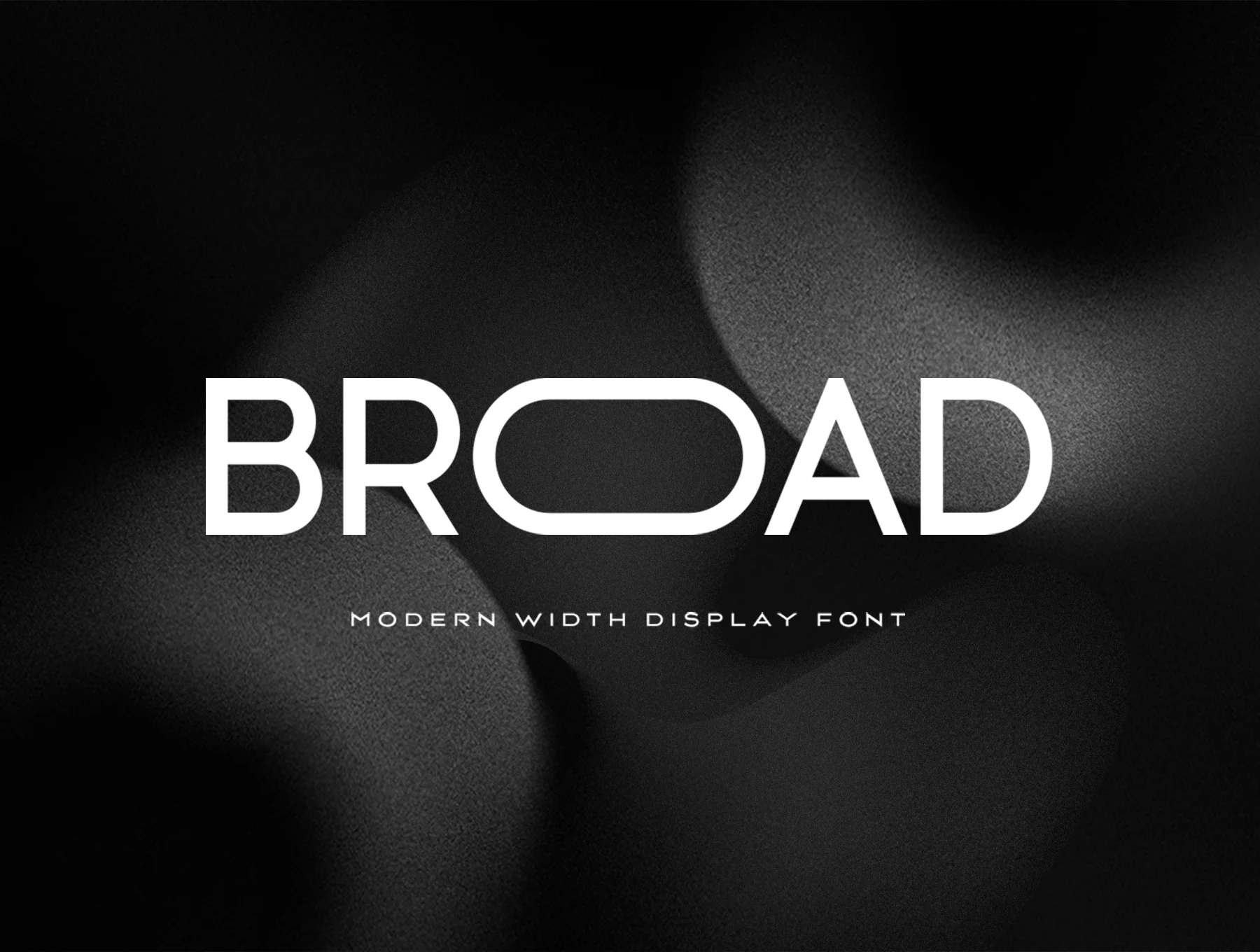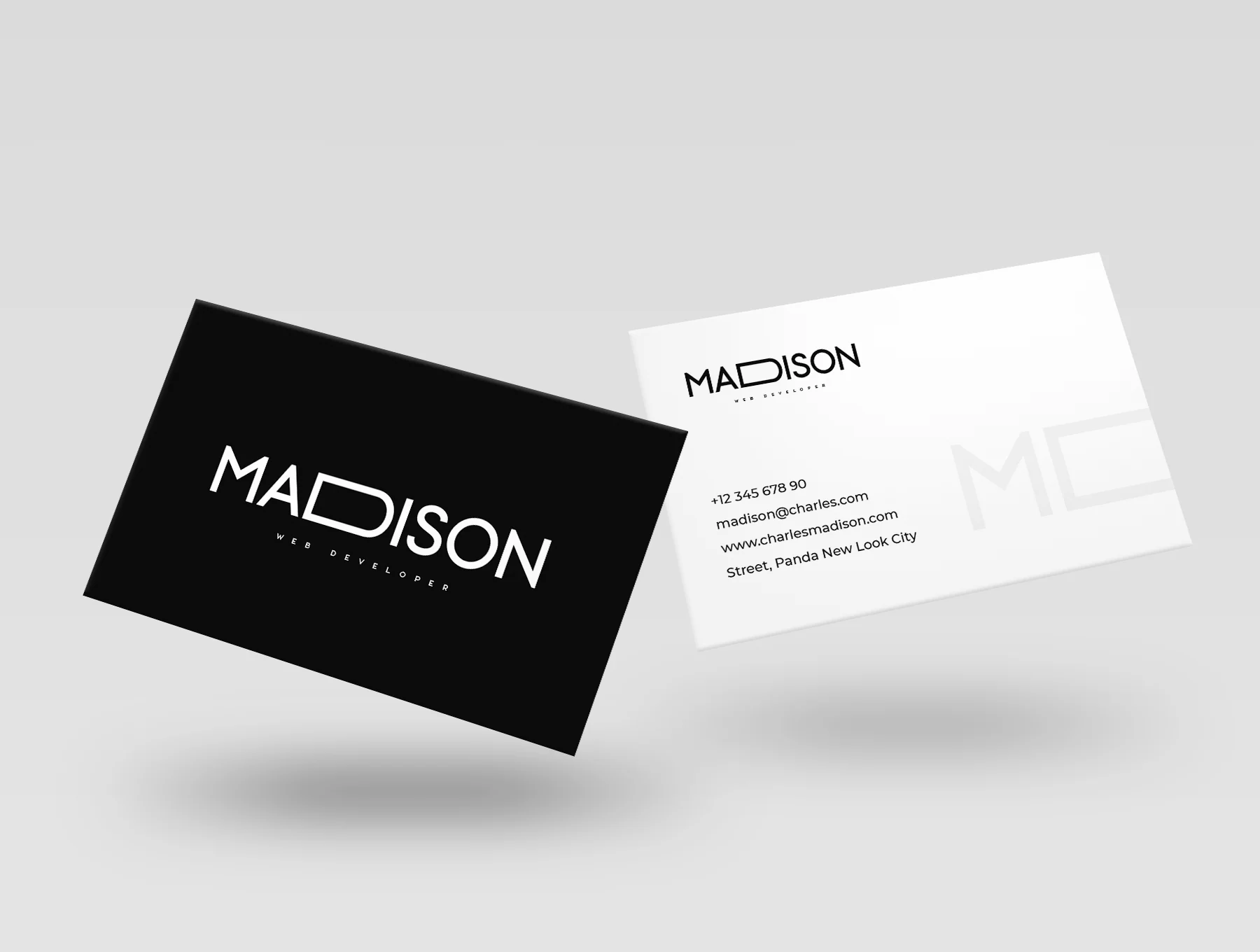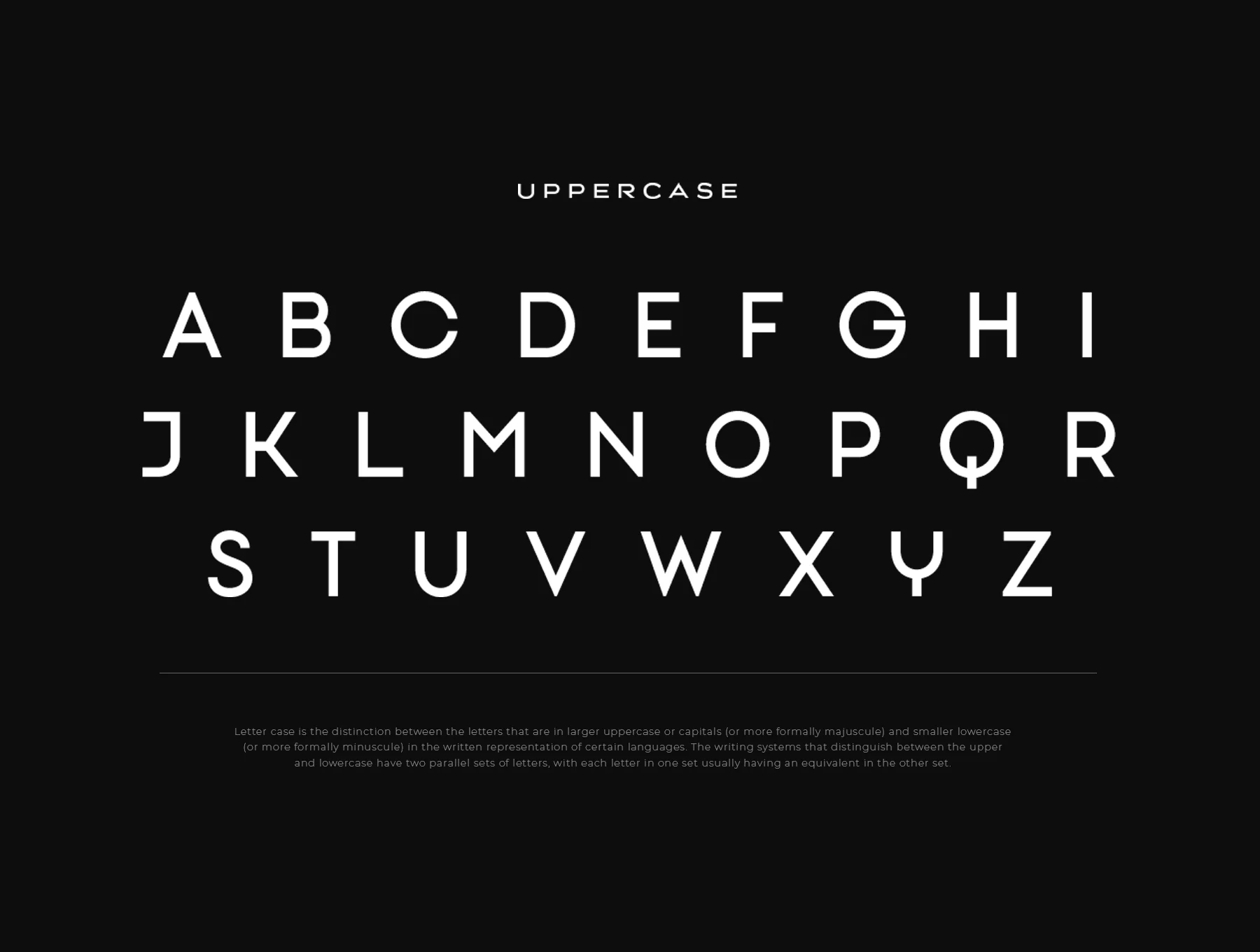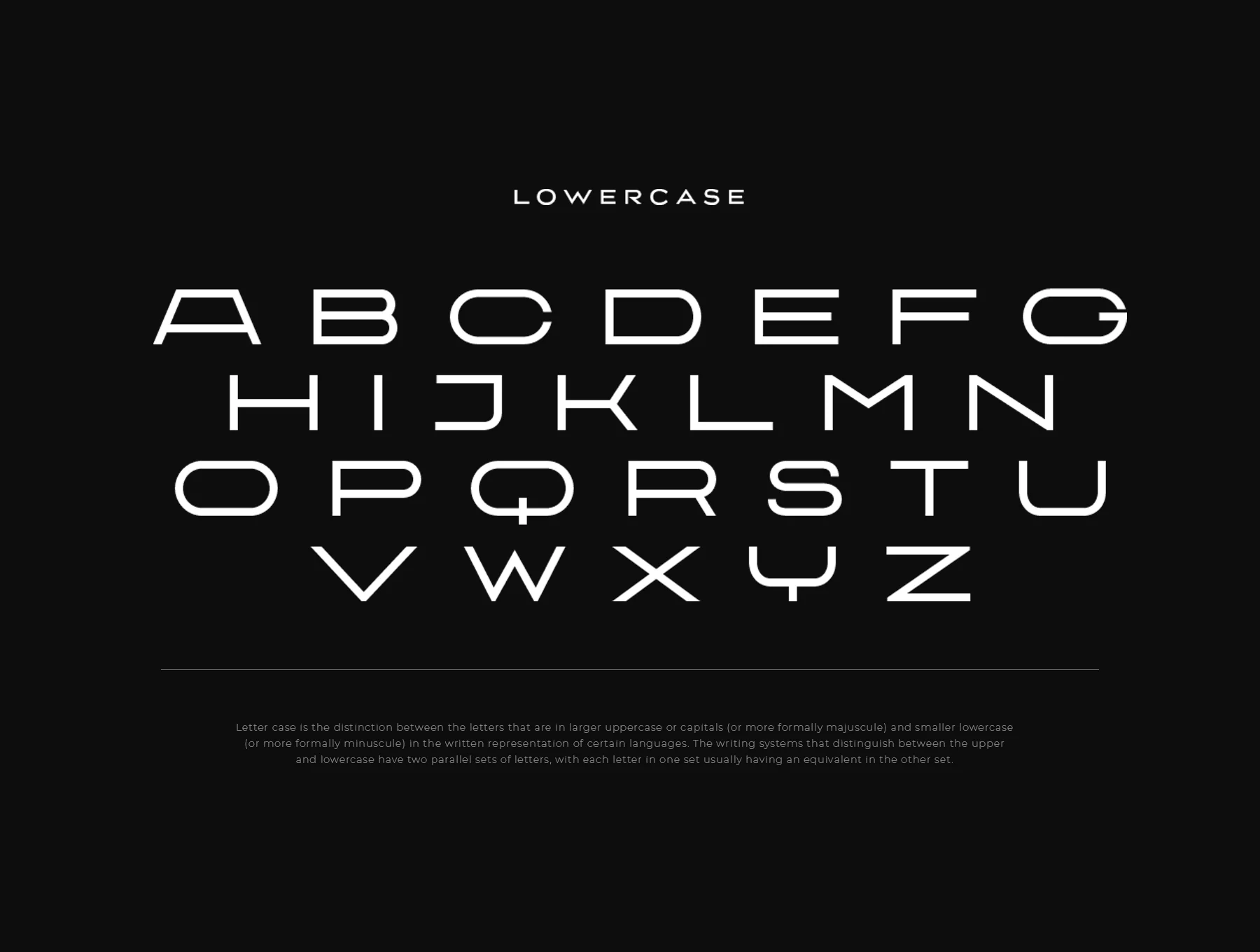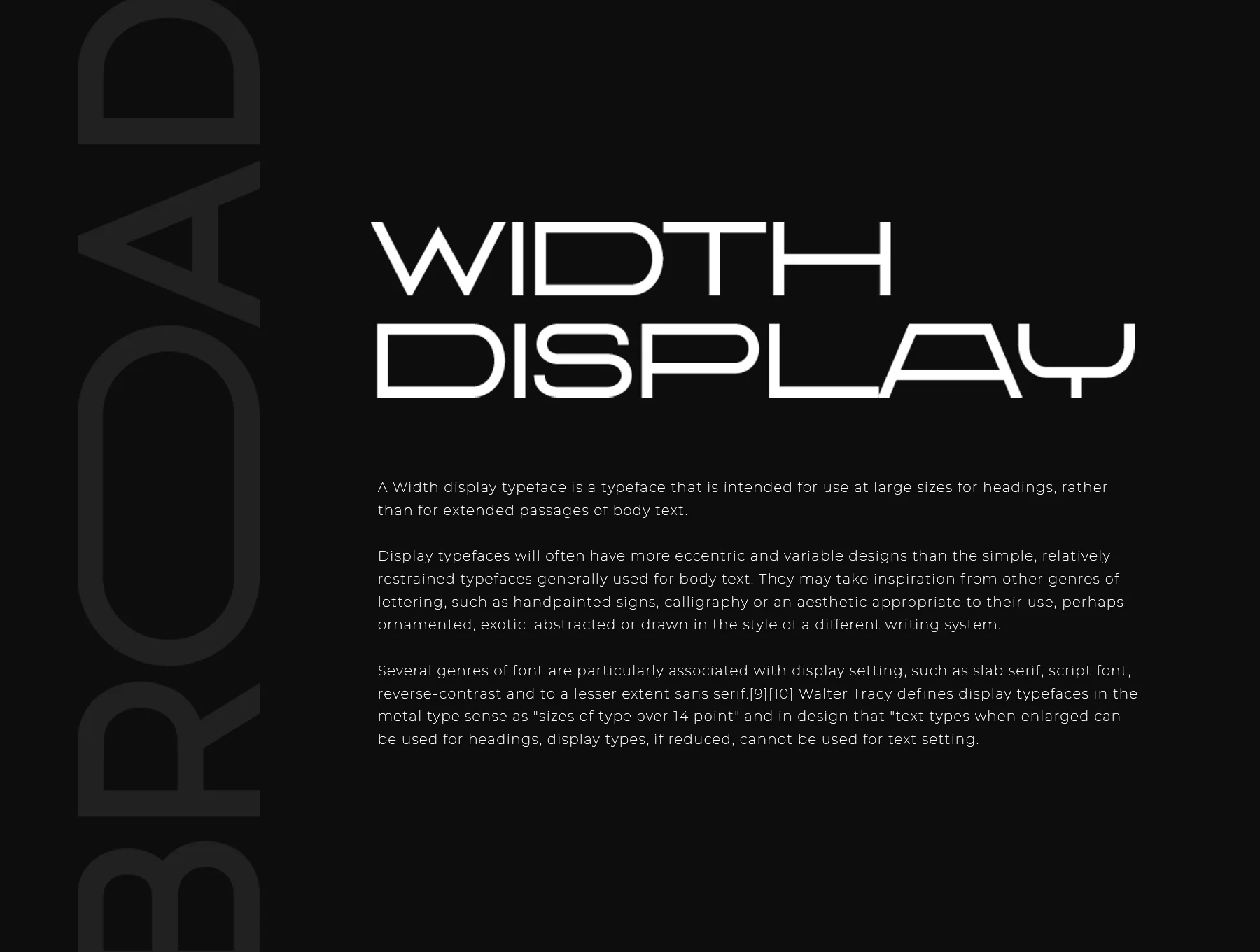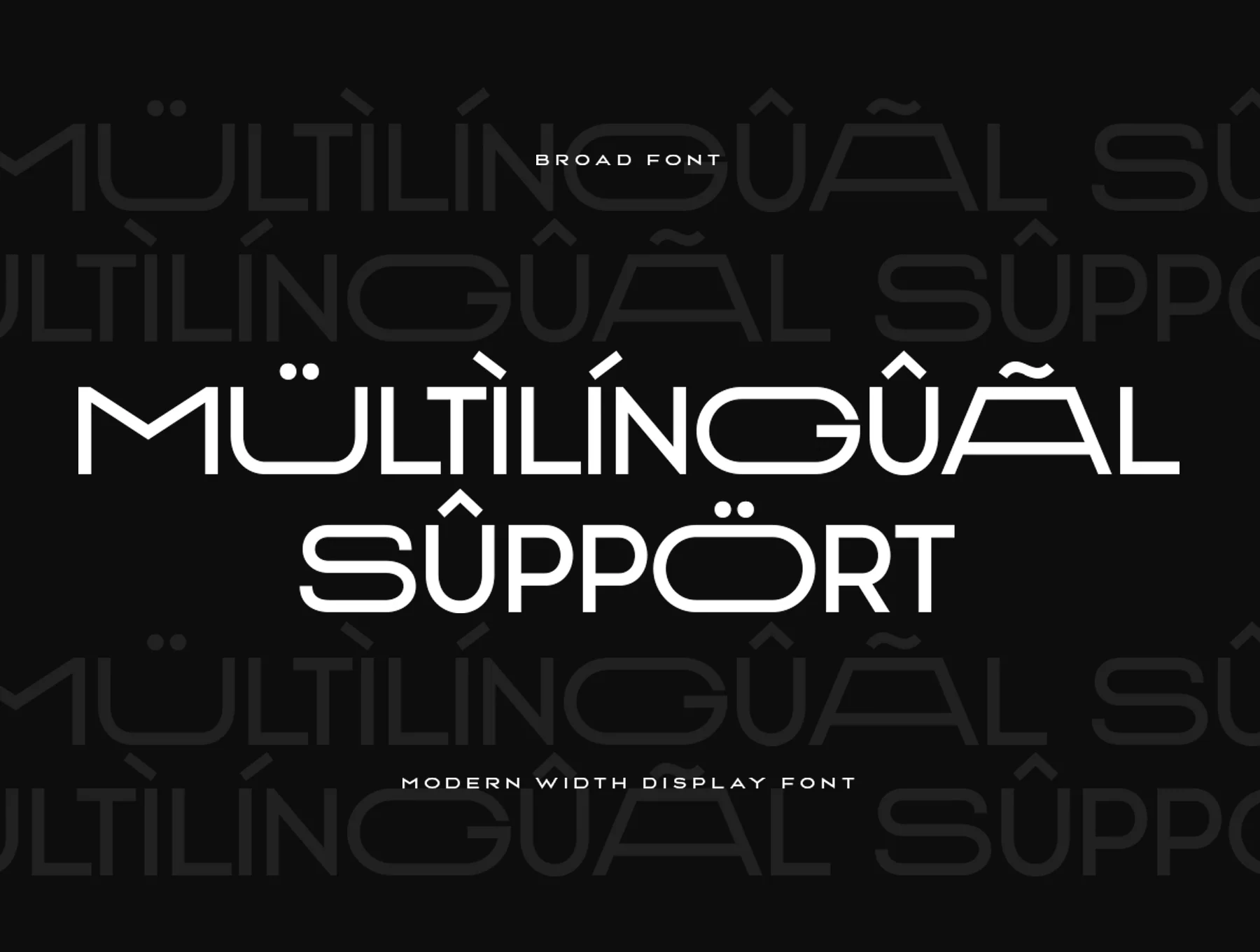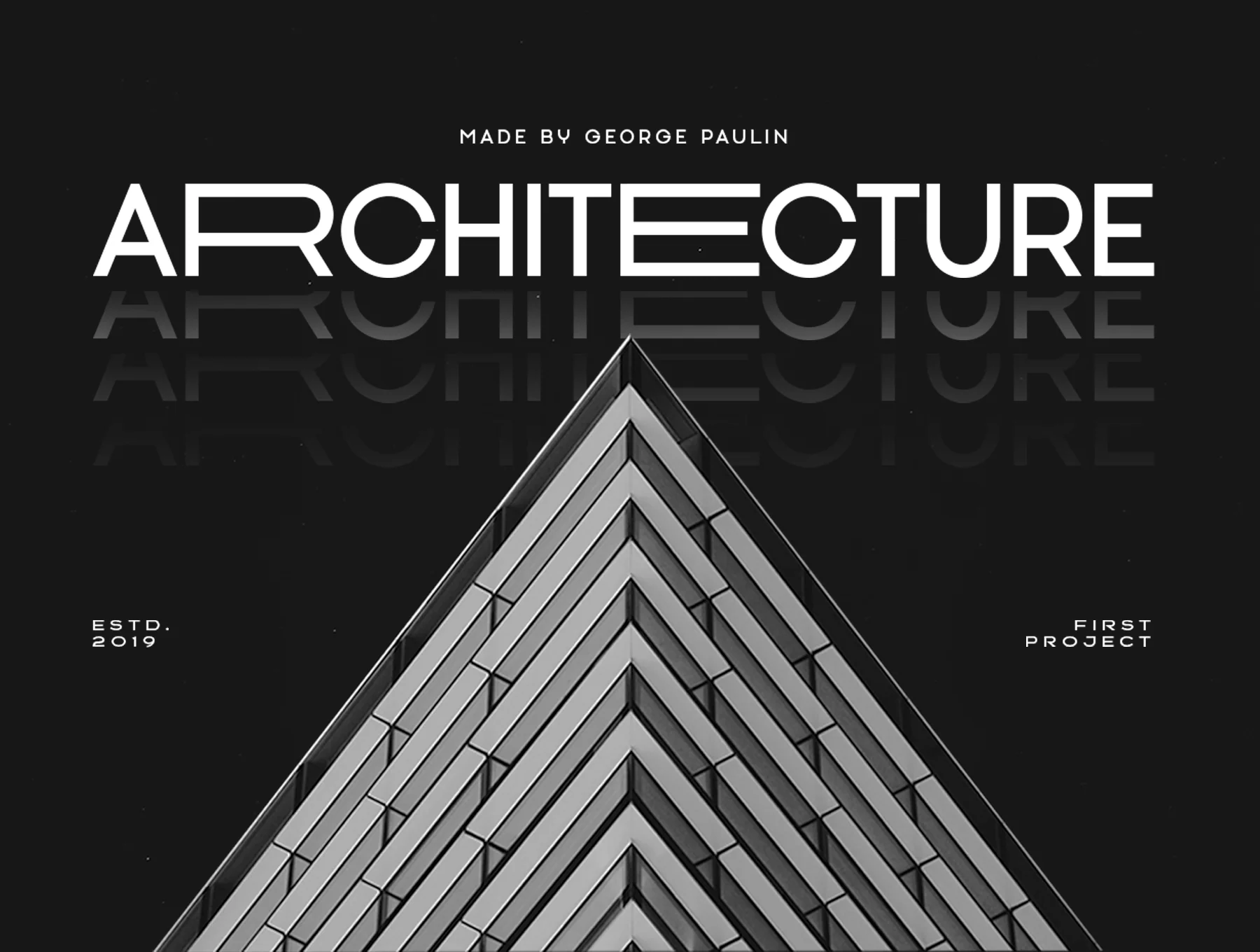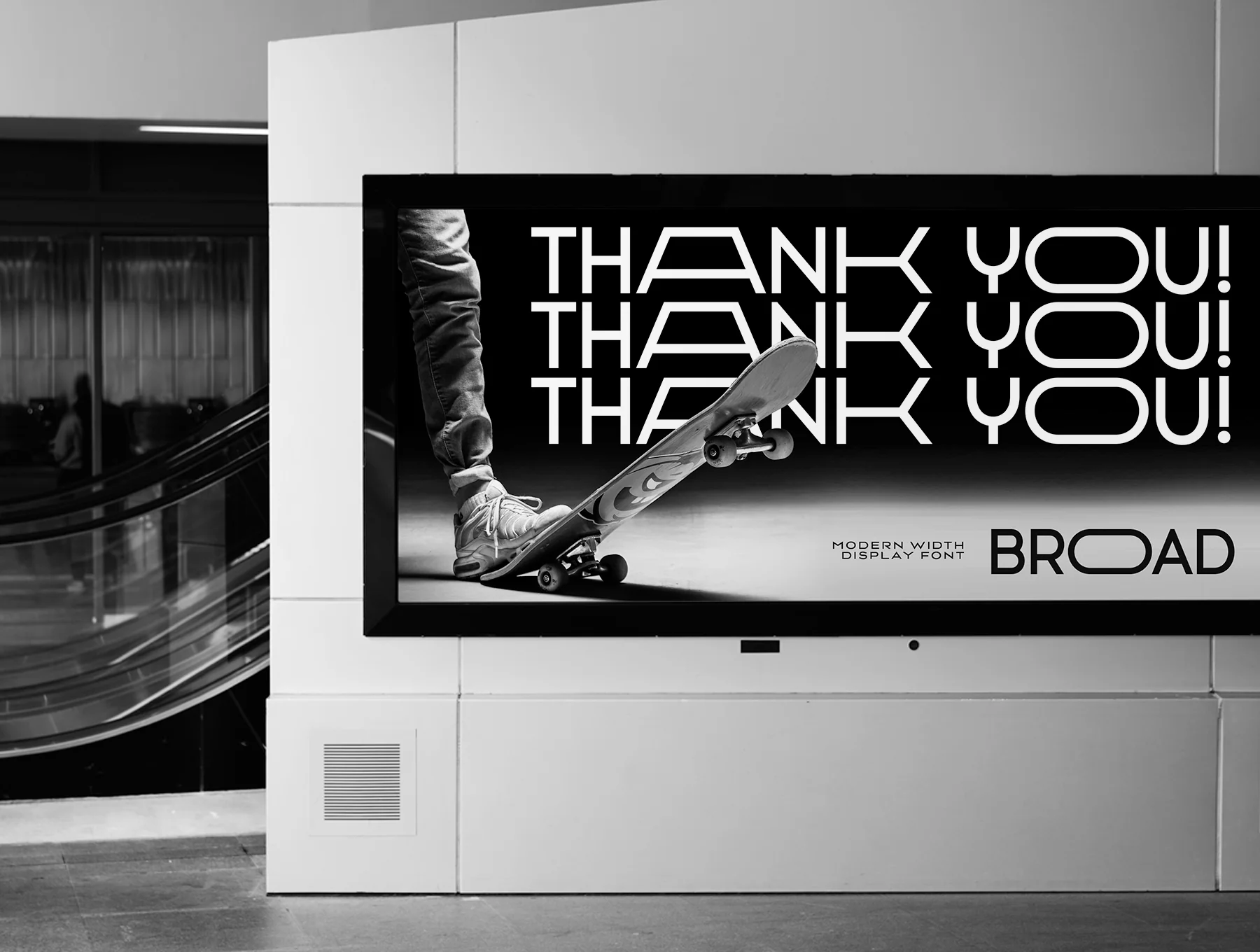
BROAD - Modern Width Display Font
BROAD is a contemporary wide sans serif font, ideal for display use
Complete uppercase and lowercase alphabet
International characters, numbers, and punctuation
BROAD is a modern wide sans serif display font designed for distinctive branding. Its expanded characters bring a fresh typographic look, helping designers and product owners create visuals that feel unique, memorable, and stand out.